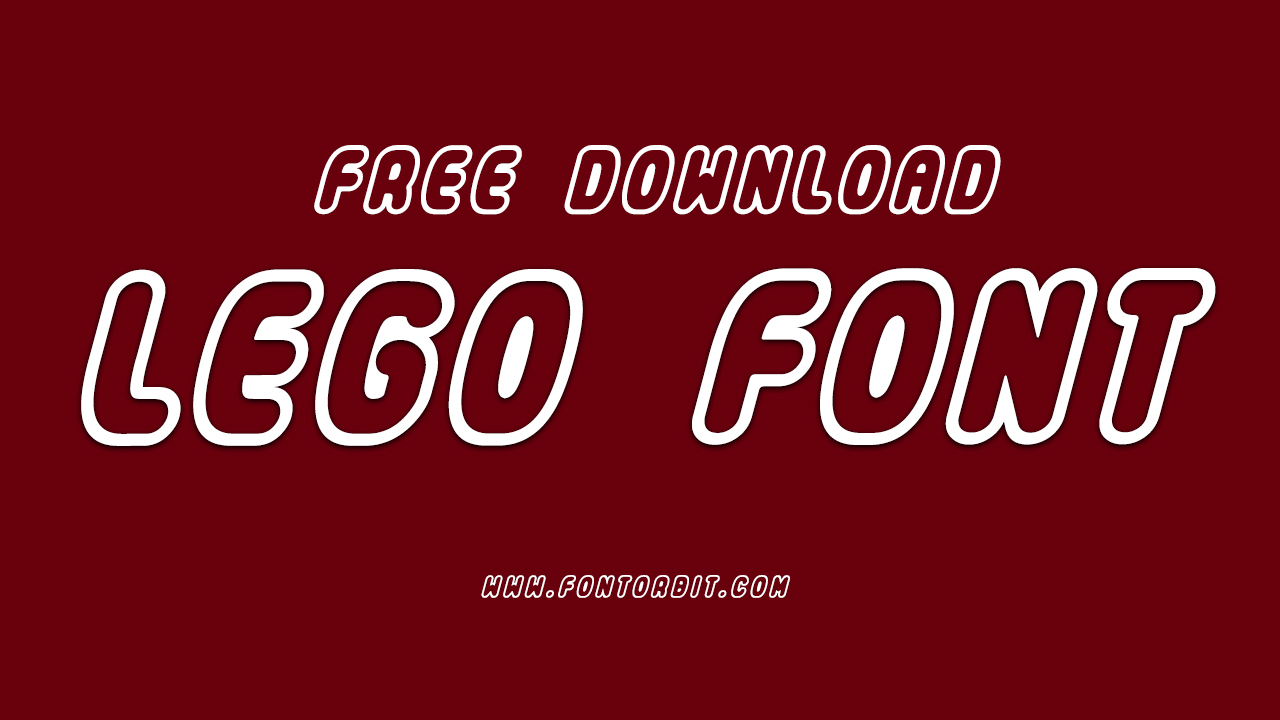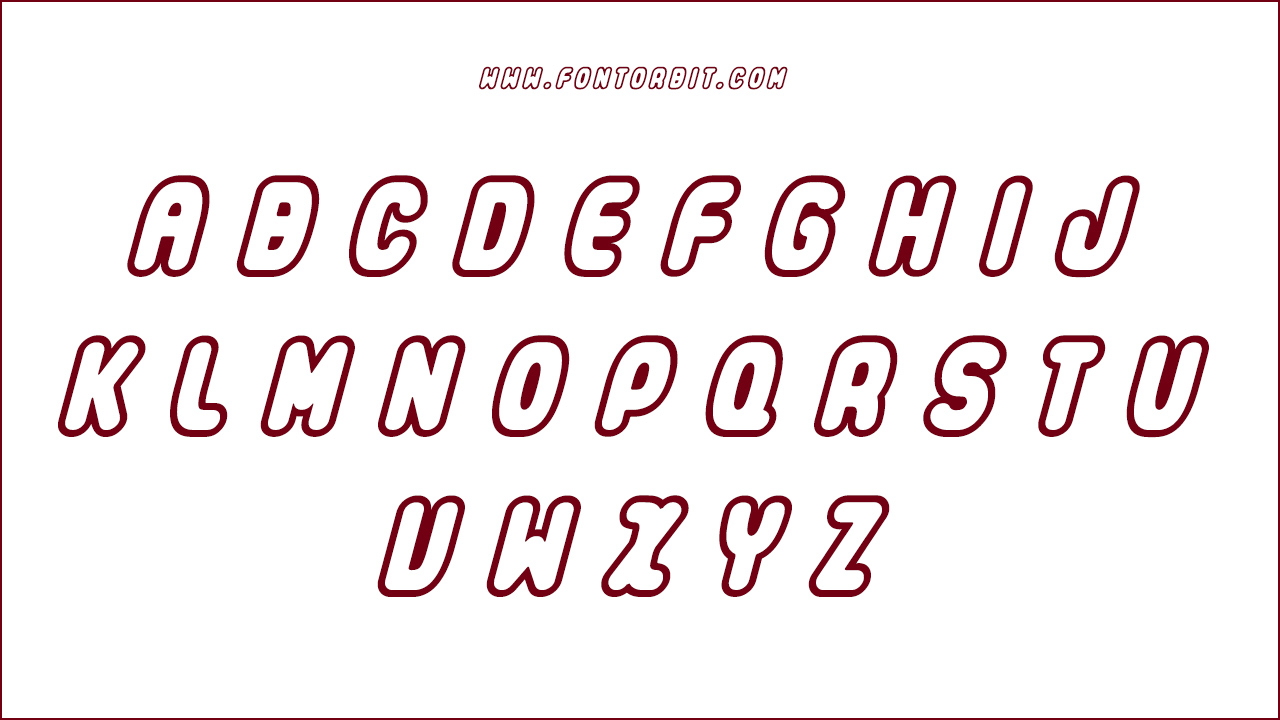
Lego Font is a playful and distinctive typeface that closely resembles LegoThick, a fan-made font inspired by the iconic Lego logo. This font is notable for its blocky, capital-letter design, mirroring the aesthetic of Lego bricks. It is available for free for personal use, capturing the essence of Lego’s fun and creative spirit.
You will find Lego Font prominently featured in Lego’s branding, product packaging, and promotional materials. Its capital-only, blocky design effectively communicates the brand’s fun and creative identity. The font family includes:
- Lego
- LegoThick
The Lego font’s blocky and playful design is ideal for projects that aim to capture the fun and creativity associated with Lego. Lego Font is prominently featured in Lego’s branding and product packaging, emphasizing the brand’s iconic and playful identity. Its bold, capital-only design effectively communicates a fun and engaging atmosphere. Its distinctive look is suited for:
Lego Font embodies the playful and iconic style of Lego’s branding with its blocky and capital-letter design. While it may not have lowercase characters, it effectively represents the Lego brand’s creative and fun spirit. Pair Lego Font with clean, modern fonts for a balanced design approach.
Lego Font is ideal for projects that need a playful and blocky aesthetic, particularly those related to children’s products and educational materials. It may be less suitable for formal or professional documents.
2.What Font Does Lego Use?
Lego uses a custom font similar to LegoThick for its logo and branding, which features blocky, capital letters.
3.What Is The Lego Font Called?
The Lego font is commonly referred to as LegoThick, a fan-made typeface inspired by the Lego logo.
5.What Are The Best Practices For Using The Lego Font In Design?
Use Lego Font primarily for playful, creative, and child-focused projects. Ensure it’s used in all caps to maintain consistency with its original design and pair it with complementary fonts for balance.
6.What Are The Benefits Of Using The Lego Font In Branding?
Using Lego Font in branding enhances recognition, conveys a fun and creative image, and connects with audiences who are familiar with the Lego brand’s playful nature.